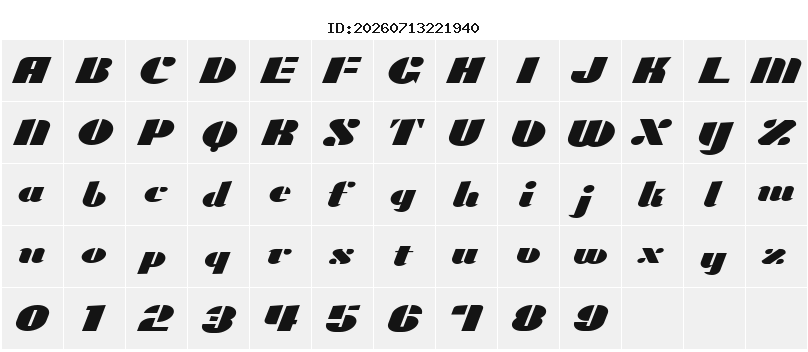
• Font Name: Caldiabold
• Full Font Name: Caldiabold
• Copyright: Copyright(R)2002. C‐FONT allrights reserved. Caldia‐Bold. Designed by Masato Shimojima : Design studio creation.
About Caldiabold.ttf
Caldiabold.ttf is a modern, elegant sans-serif font designed for ultimate readability and visual harmony. Perfect for branding, headlines, web design, and print materials.